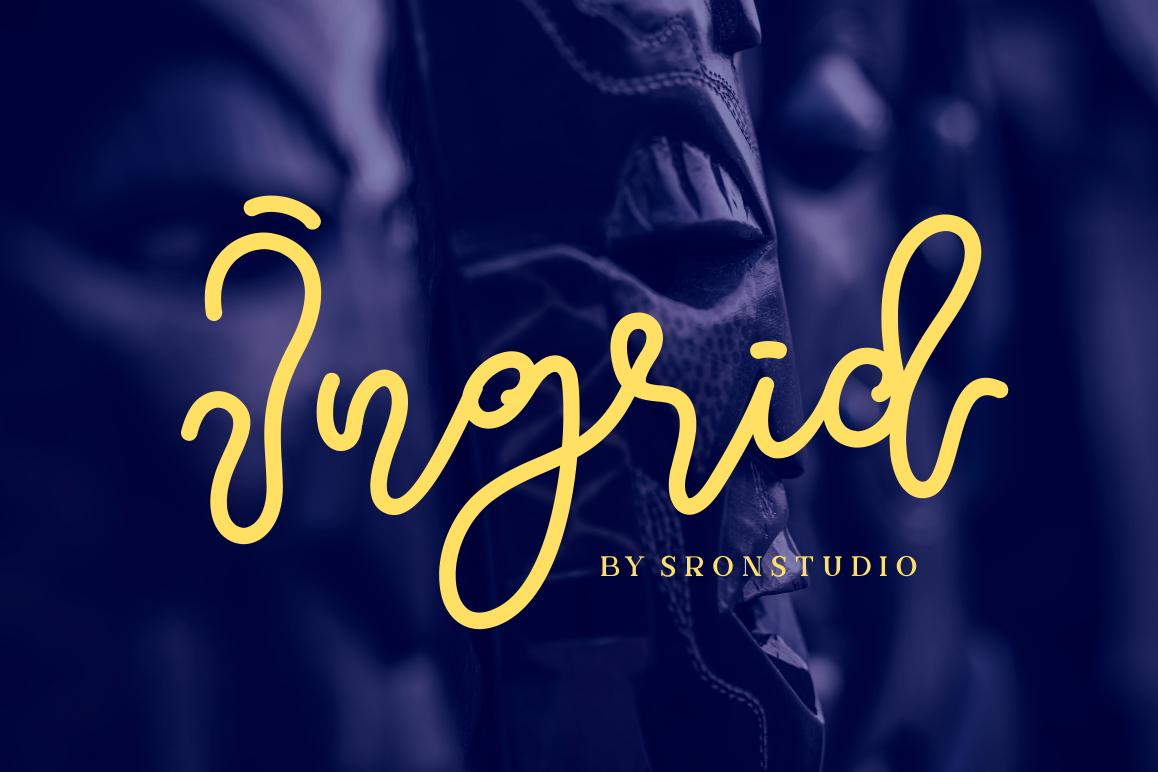
Ingrid Script
Ingrid is a unique script font. It comes with lwercase ending alternate that will give you the opportunity to create unique designs, every time you use it.What's Included :